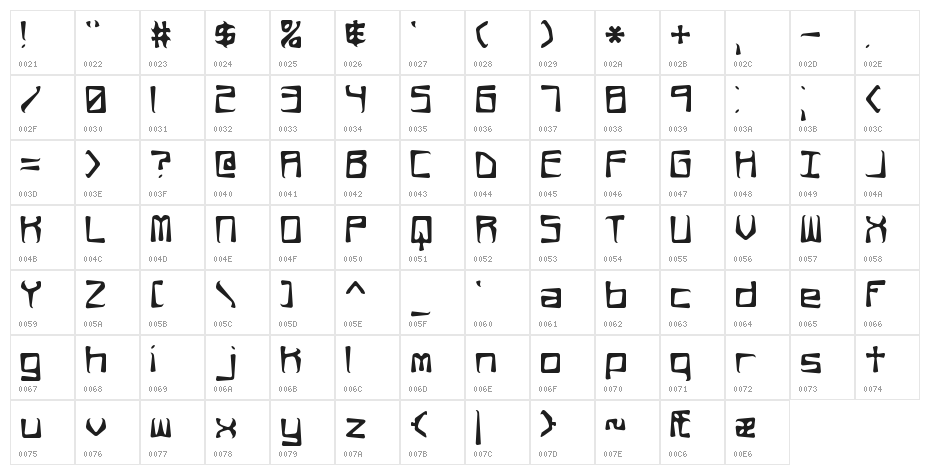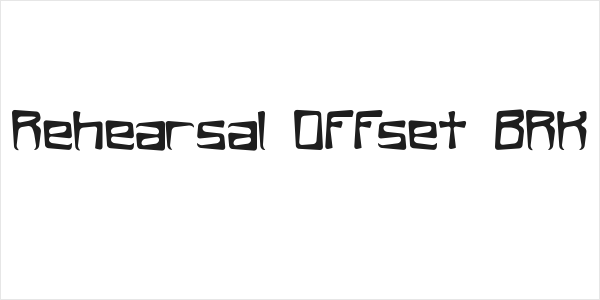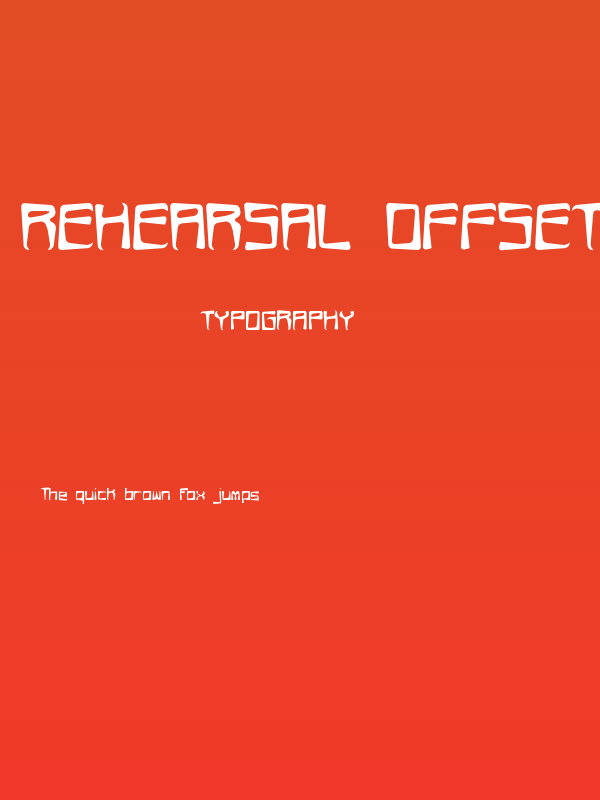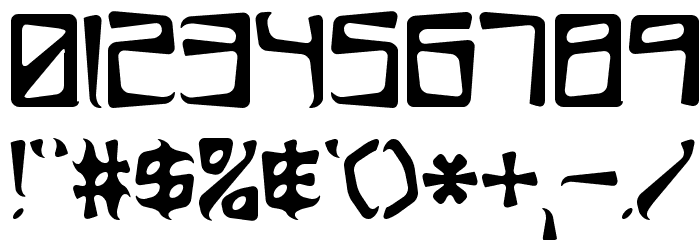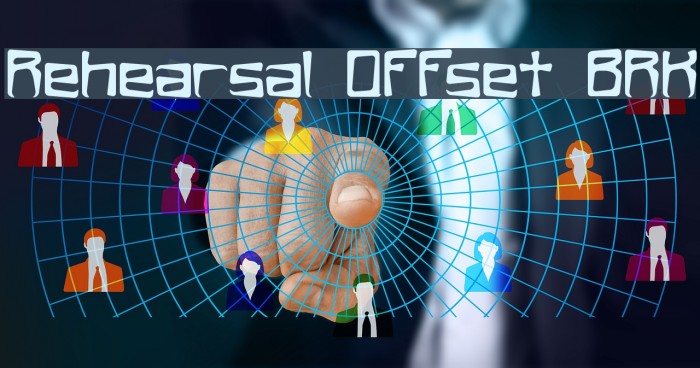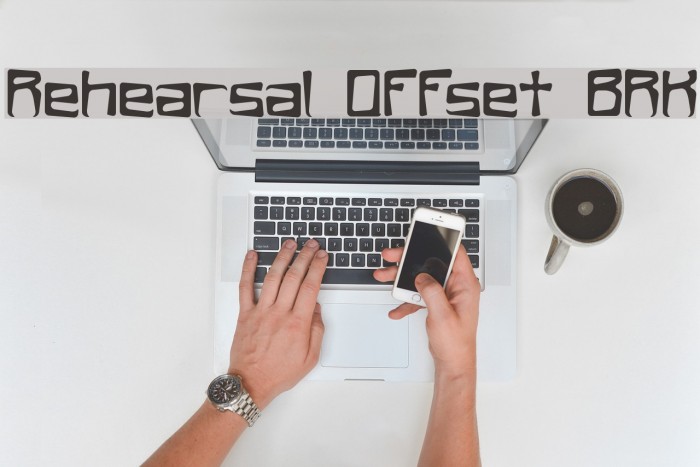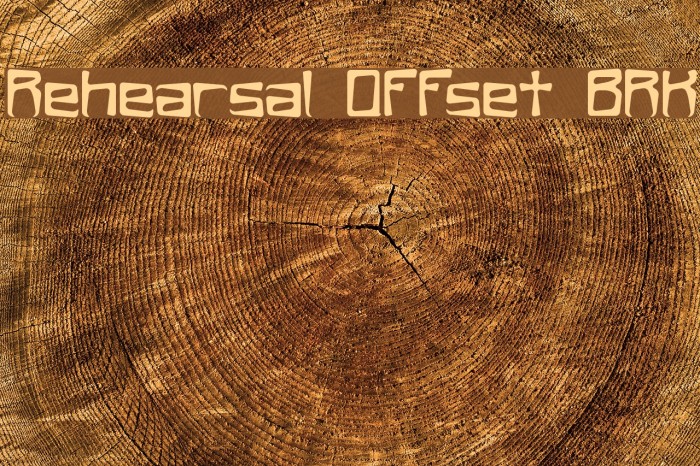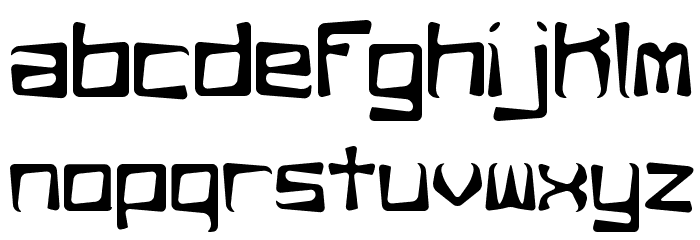
Rehearsal Offset BRK Font
Rehearsal Offset BRK Description
This font features a bold and dynamic style with a slightly distorted appearance, giving it a unique and edgy look. The characters are irregularly shaped, with varying stroke thicknesses that create a sense of movement and energy. The uppercase and lowercase letters maintain a consistent design, while the numbers and special characters follow the same artistic theme. The overall impression is one of creativity and non-conformity, making it suitable for projects that require a distinctive and unconventional aesthetic.
| Overall Style | Modern, Edgy |
| Use Case | Logos, Posters, Album Covers |
| Proposed Projects | Ideal for music album covers, graffiti art, urban-themed posters, and creative branding projects. |